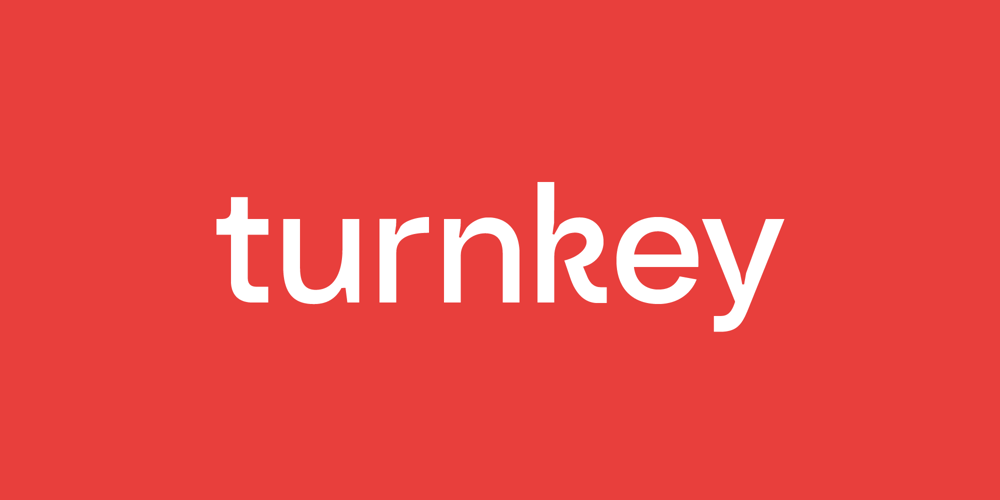
Turnkey Font Family was designed by Adam Greasley and published by wearecolt. Turnkey contains 36 styles and family package options. Turnkey is a modern grotesque typeface, it could be described as a neo-grotesque with hints of geometric shapes. A workhorse typeface designed to be versatile for both small and large sizes, ink traps have been used as a design feature above 26pt and a technical feature when printing small body text.The combination of 36 weights and styles allows you the freedom to create. Each weight includes extended support for over 90 languages (Including Cyrillic), fractions, tabular figures, arrows, ligatures, alternate glyphs, and more. Demo licenses are available from colttypeco.comIn addition to a standard style set, the Turnkey family also has an italic set plus soft versions of both. Turnkey Soft is a slightly rounded version of the standard and italic, which looks more friendly, warm, and soft.It’s corporate but with a personality.Current instances are: Turnkey Standard – Thin, Thin Italic, Extra Light, Extra Light Italic, Light, Light Italic, Regular, Regular Italic, Medium, Medium Italic, SemiBold, SemiBold Italic, Bold, Bold Italic, Extra Bold, Extra Bold Italic, Heavy, Heavy Italic.Turnkey Soft – Thin, Thin Italic, Extra Light, Extra Light Italic, Light, Light Italic, Regular, Regular Italic, Medium, Medium Italic, SemiBold, SemiBold Italic, Bold, Bold Italic, Extra Bold, Extra Bold Italic, Heavy, Heavy ItalicWhen used as body type, Turnkey pairs well with: Take Note, Stroom and Markout.Turnkey is perfect for; headings, titles, body copy, logos, magazines, editorial design, corporate branding, brand identity, websites, blogs, apps, games, ebooks, publications, and signage.Turnkey can be found in the Typodarium 2024OpenType features: Access All Alternates, Glyph Composition / Decomposition, Discretionary Ligatures, Denominators, Fractions, Kerning, Standard Ligatures, Localized Forms, Mark Positioning, Mark to Mark Positioning, Numerators, Proportional Figures, Scientific Inferiors, Stylistic Set 1, Stylistic Set 2, Stylistic Set 3, Subscript, Superscript, Tabular Figures.Support for 95 languages:Belarusian, Russian, Ukrainian, Afrikaans, Albanian, Asu, Basque, Bemba, Bena, Breton, Catalan, Chiga, Colognian, Cornish, Croatian, Czech, Danish, Dutch, Embu, English, Esperanto, Estonian, Faroese, Filipino, Finnish, French, Friulian, Galician, Ganda, German, Gusii, Hungarian, Inari Sami, Indonesian, Irish, Italian, Jola-Fonyi, Kabuverdianu, Kalenjin, Kamba, Kikuyu, Kinyarwanda, Latvian, Lithuanian, Lower Sorbian, Luo, Luxembourgish, Luyia, Machame, Makhuwa-Meetto, Makonde, Malagasy, Maltese, Manx, Meru, Morisyen, North Ndebele, Norwegian Bokmål, Norwegian Nynorsk, Nyankole, Oromo, Polish, Portuguese, Quechua, Romanian, Romansh, Rombo, Rundi, Rwa, Samburu, Sango, Sangu, Scottish Gaelic, Sena, Serbian, Shambala, Shona, Slovak, Soga, Somali, Spanish, Swahili, Swedish, Swiss German, Taita, Teso, Turkish, Upper Sorbian, Uzbek (Latin), Volapük, Vunjo, Walser, Welsh, Western Frisian, Zulu